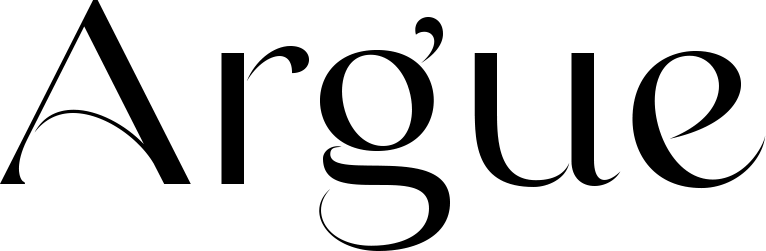
Argue Font
Can you imagine how perfect designing fashion magazines and luxury perfume and jewelry brands could be using this modern and serif font? If you need a particular typeface for designing wedding invitation cards, better to put this fashion and luxury font in your download list.
Argue is one of the feminine font styles we have introduced. It can help you present your perfume and watch brands’ titles for ads.